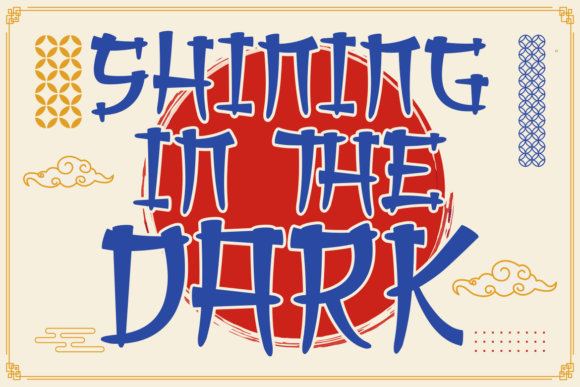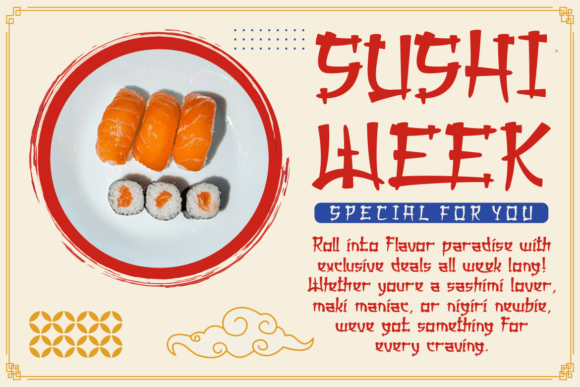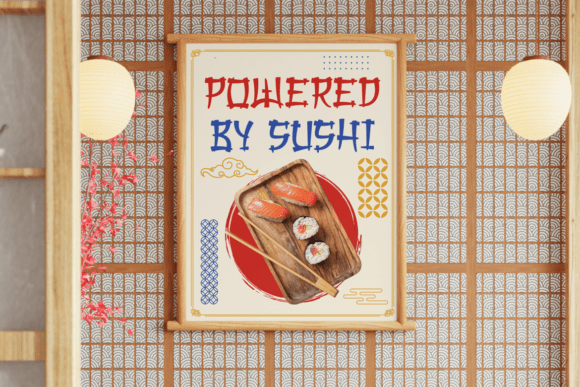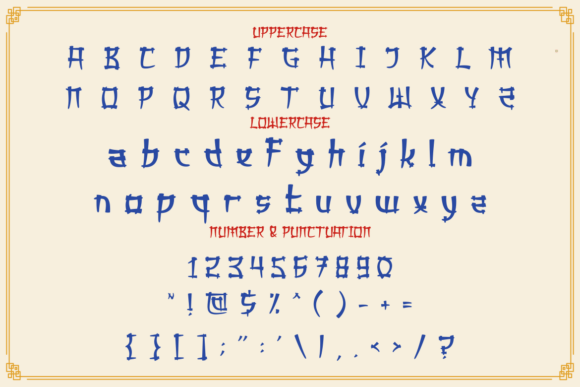
Introduction to Japanese Neotokyo Font
Step into a fusion of cultural elegance and neo-futuristic flair with Japanese Neotokyo, a bold display font inspired by the brush artistry of traditional Japanese calligraphy and the modern pulse of Tokyo street visuals.
This font captures the spirit of East Asian typographic aesthetics through its dynamic stroke terminals, hand-painted brush textures, and balanced geometric construction The characters are slightly exaggerated in height and width, creating a dramatic presence that immediately draws the eyeโperfect for capturing attention in designs that require cultural authenticity with a modern twist.